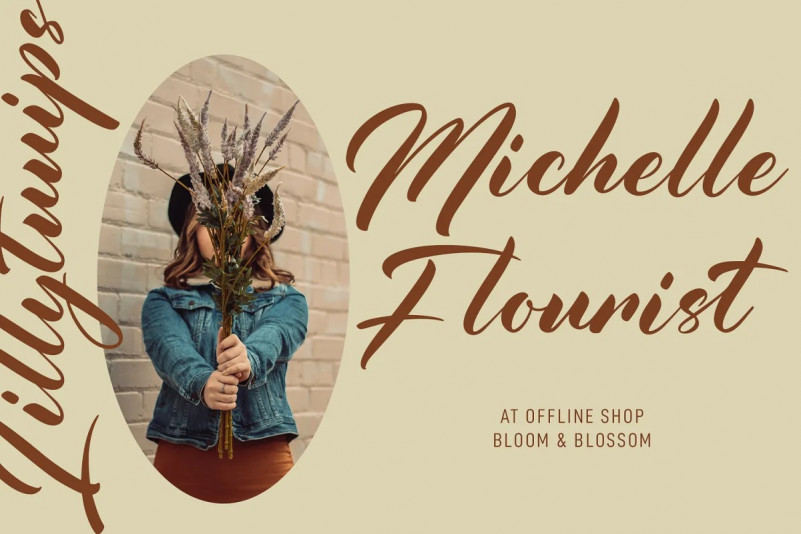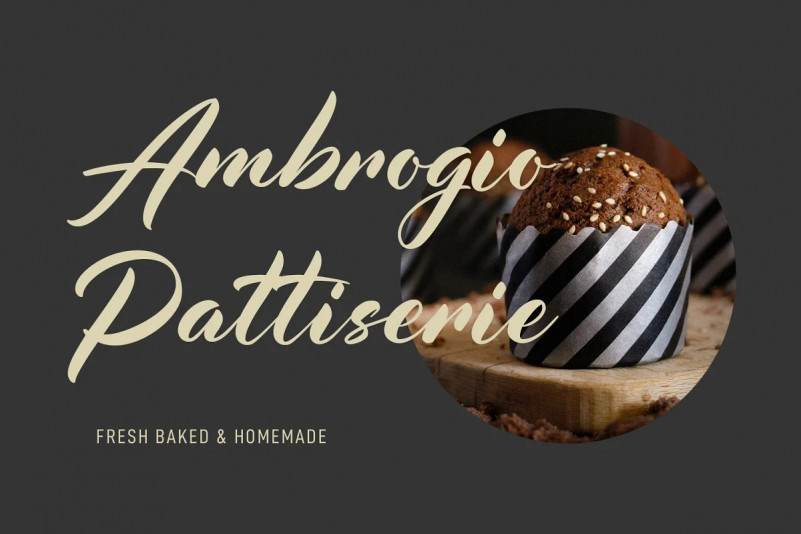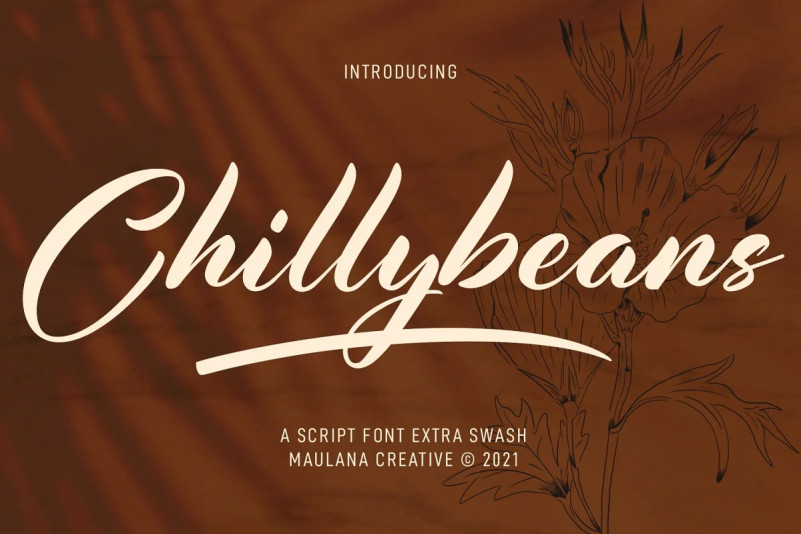
Chillybeans Font
Chillybeans Script Font. With regular contrast stroke, fun character with a bit of ligatures and swashes. To give you an extra creative work.
Chillybeans font support multilingual more than 100+ language. This font is good for logo design, Social media, Movie Titles, Books Titles, a short text even a long text letter and good for your secondary text font with sans or serif. Make a stunning work with Chillybeans font.